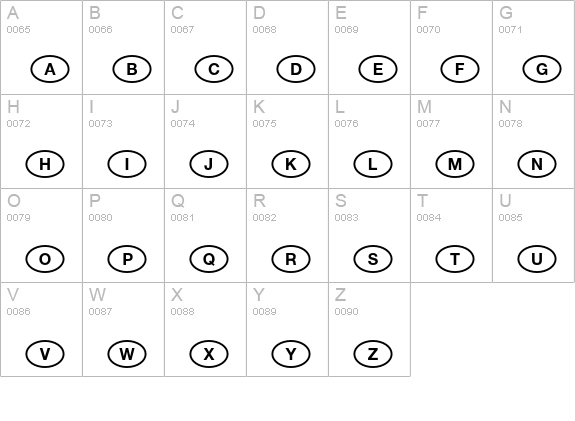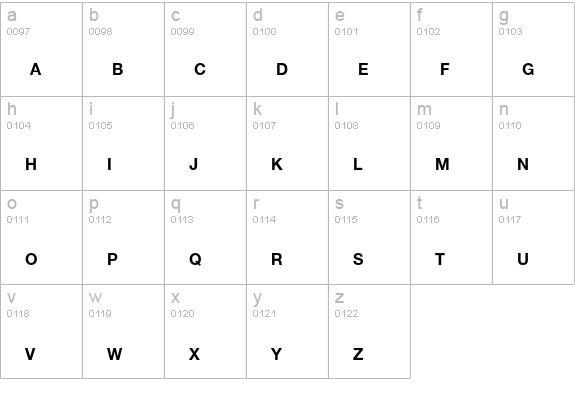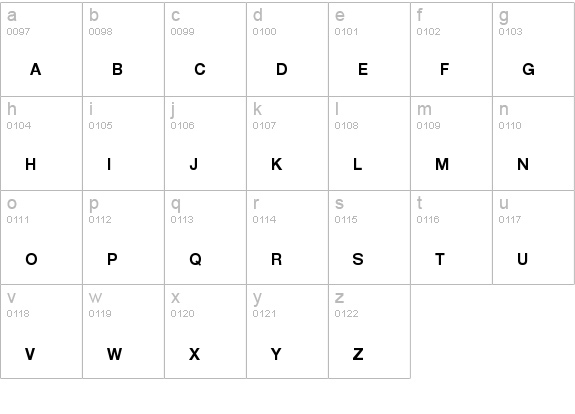
National Code Pi Std Universal Font Details
National Code Pi Std Universal font is a versatile and modern typeface that is perfect for a wide range of design projects. With its clean lines and sharp edges, this font exudes a sense of professionalism and sophistication. Whether you are working on a website, branding materials, or print design, National Code Pi Std Universal font will elevate your work to the next level. What sets this font apart is that it is not only stylish and functional, but it is also free to download! Yes, you read that right - you can get your hands on National Code Pi Std Universal font without spending a penny. Simply visit FontsMarket.com to access this amazing font and start using it in your projects today. With a wide range of weights and styles available, National Code Pi Std Universal font offers flexibility and versatility to suit your specific design needs. From bold headlines to elegant body text, this font can do it all. Don't miss out on the opportunity to enhance your design projects with the sleek and modern aesthetic of National Code Pi Std Universal font - download it for free now at FontsMarket.com.